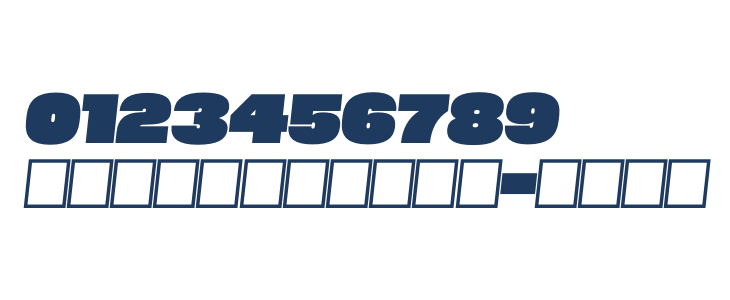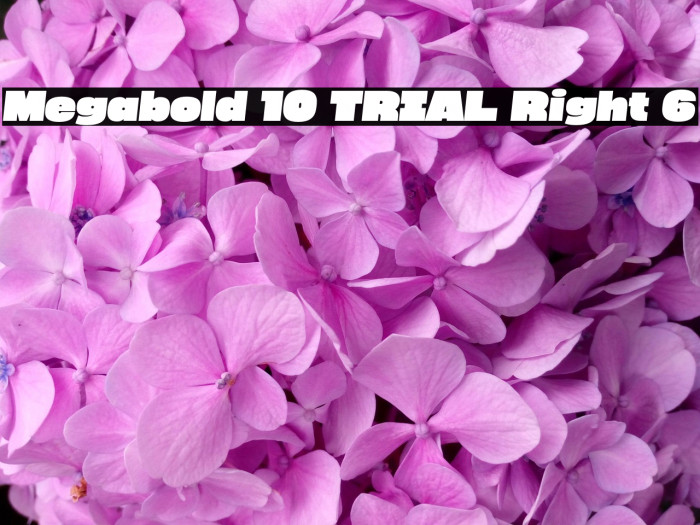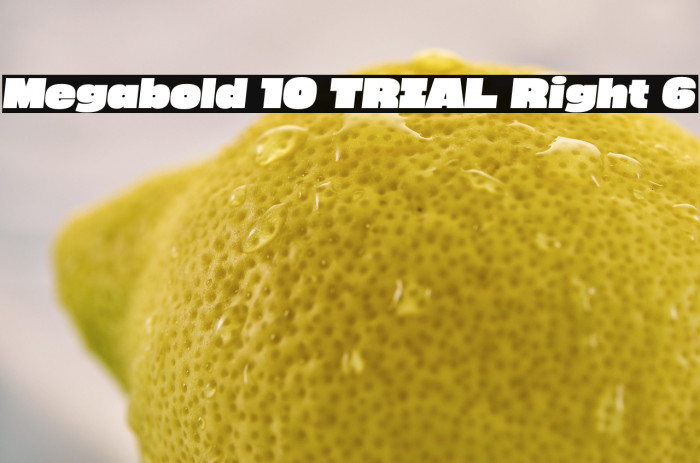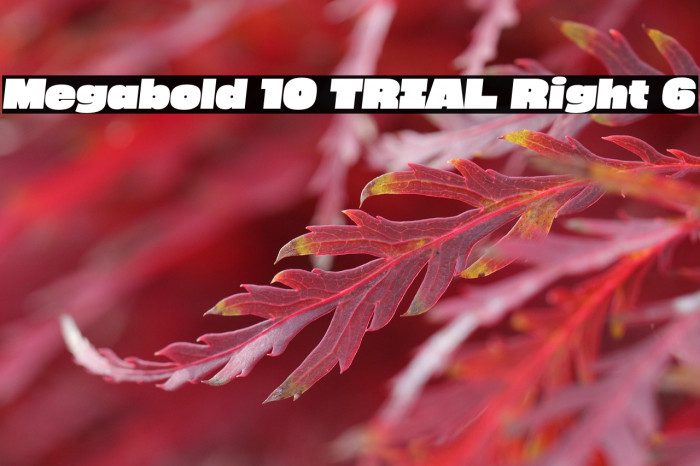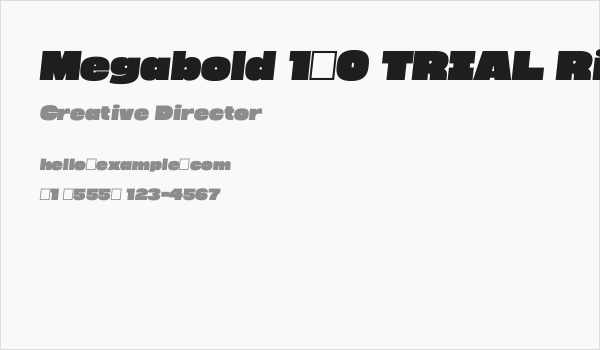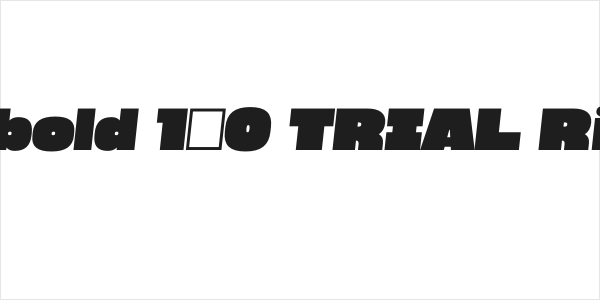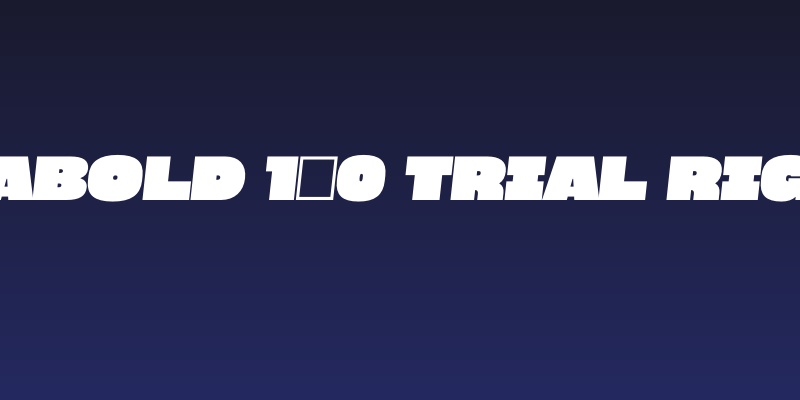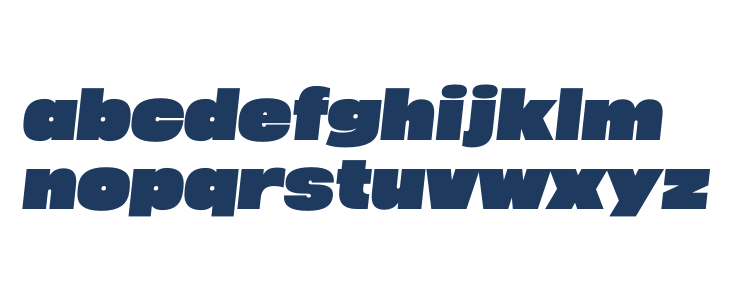
Megabold 1.0 TRIAL Right 6 Font
Megabold 1.0 TRIAL Right 6 Description
This font features a bold and impactful style with thick, heavy strokes that create a strong visual presence. The characters are wide and robust, making them ideal for attention-grabbing designs. The uppercase and lowercase letters maintain a consistent weight, contributing to a cohesive look. The numerals are equally bold, ensuring they stand out in any context. The special characters are designed with the same boldness, providing a uniform appearance across all glyphs. This font's strong and assertive style makes it suitable for projects that require a commanding and confident typeface.
Proposed ProjectsIdeal for headlines, posters, branding, and any design requiring a bold statement.